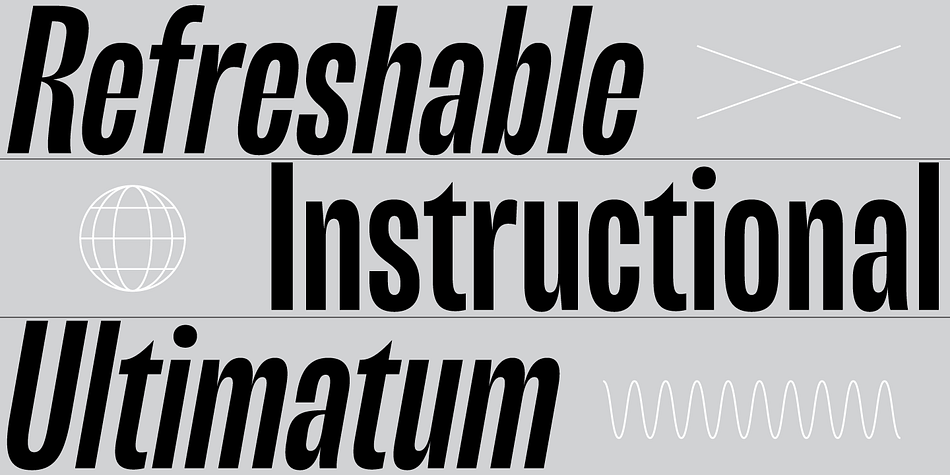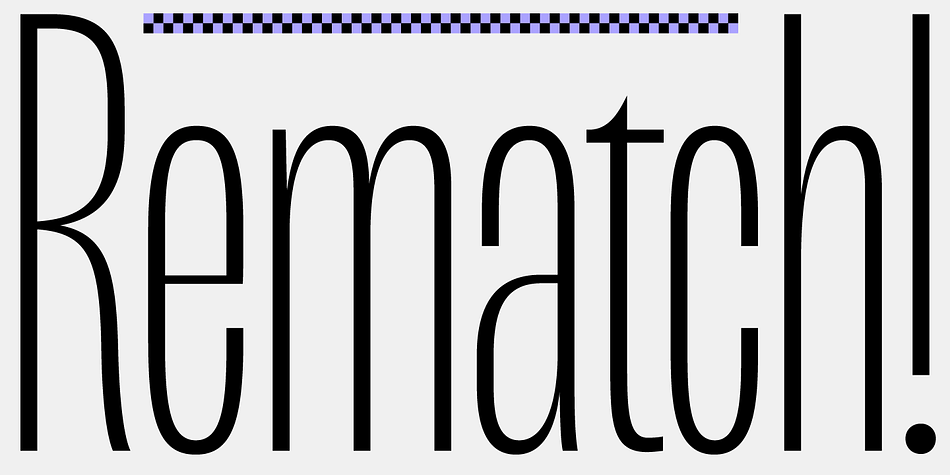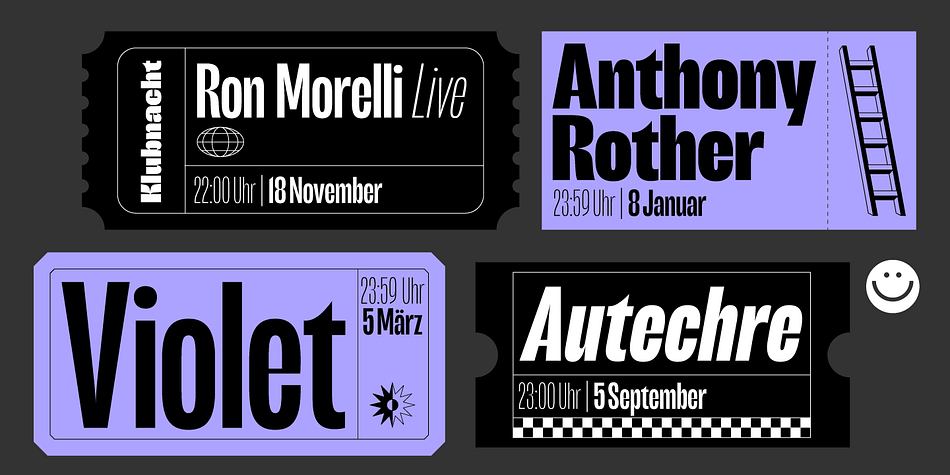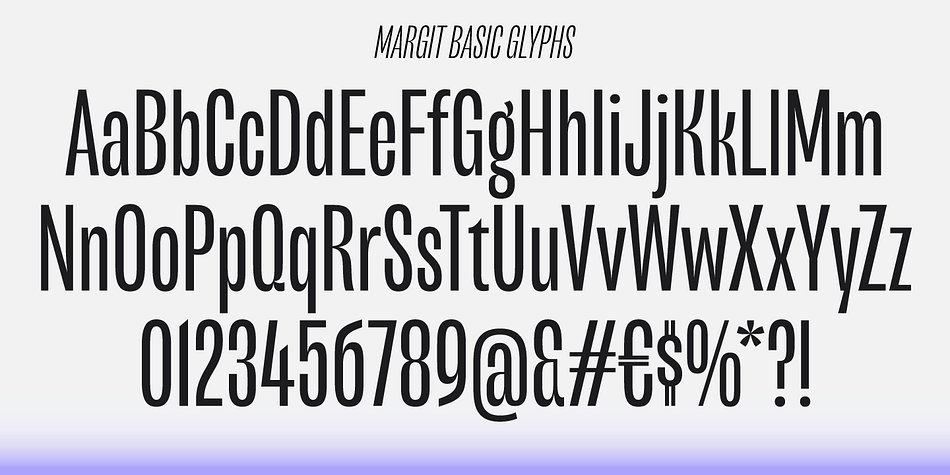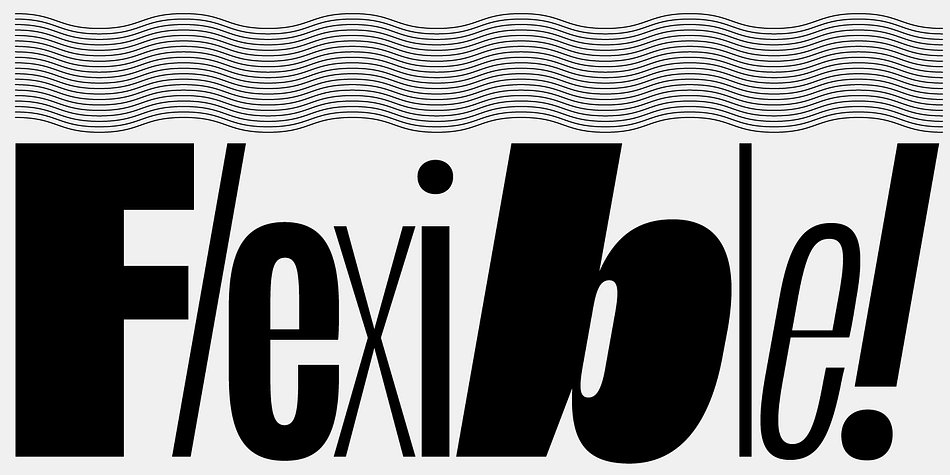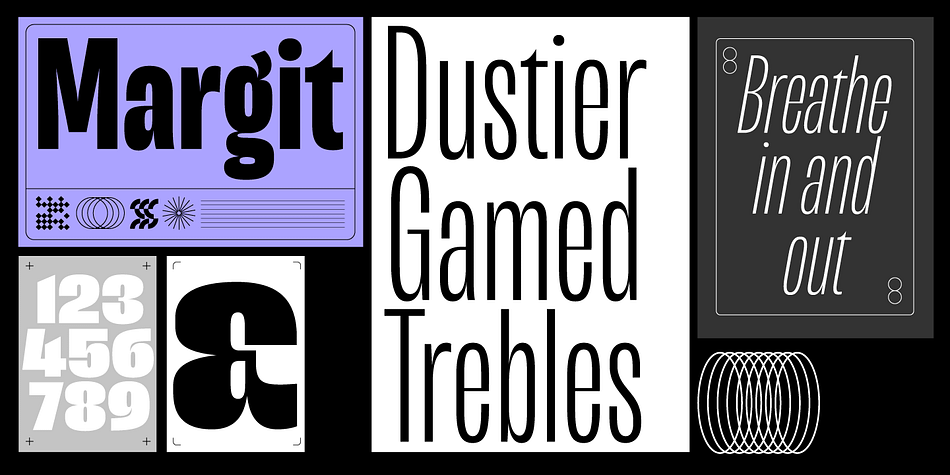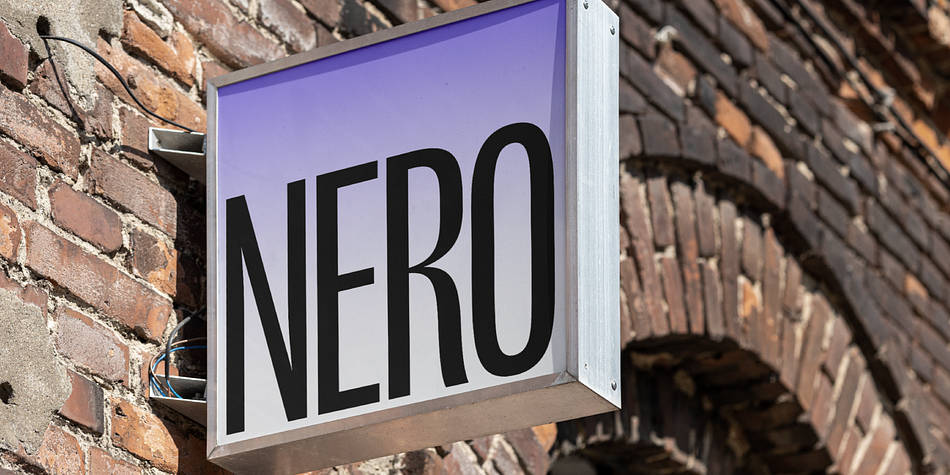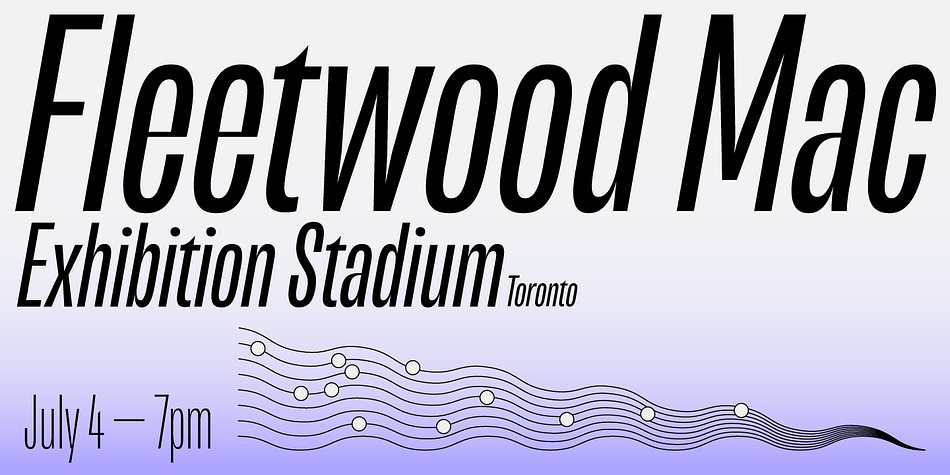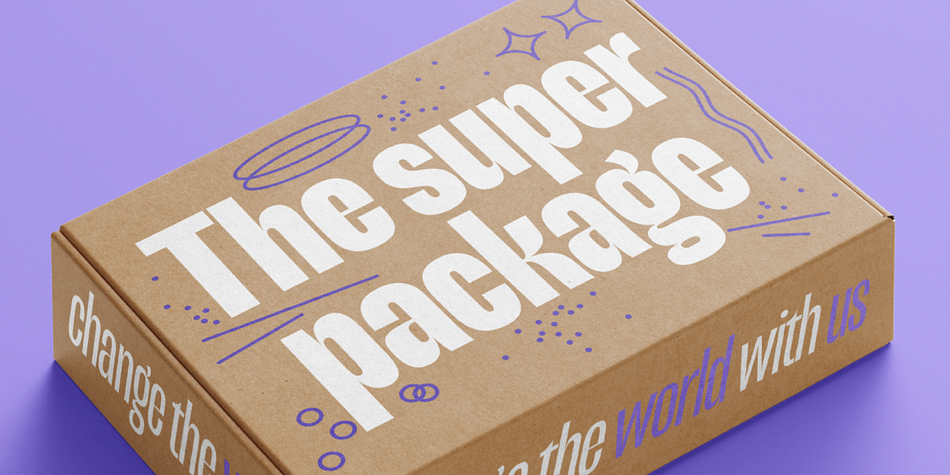
Margit
Designed by Miriam Surányi, Margit is a display sans font family. This typeface has eighteen styles and was published by Schriftlabor.
Margit is a condensed display typeface that includes Latin and Cyrillic scripts, supporting over 200 languages. Margit’s letterforms have a contemporary style with pointy edges and friendly curves inspired by old wood-type specimens. Its bold and unapologetic design will be great to use in poster design, giving the content a stronger voice. This font family can bring a unique look to your packaging projects and modern branding solutions. Explore the extensive range of styles and weights that make this typeface ultra-versatile.